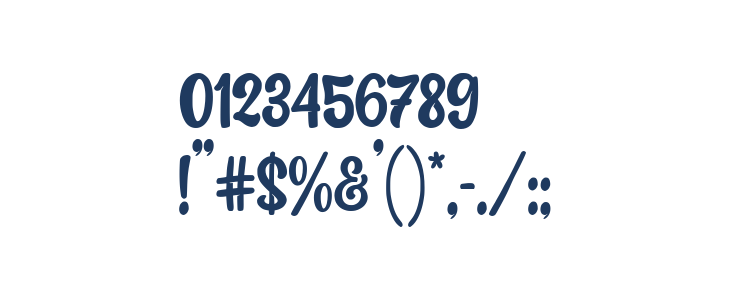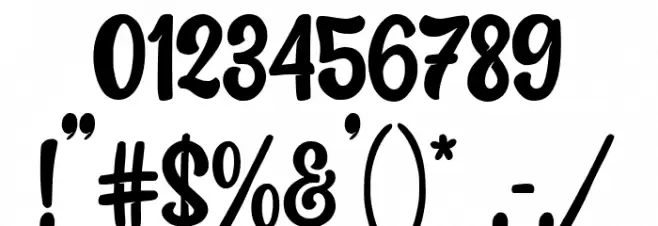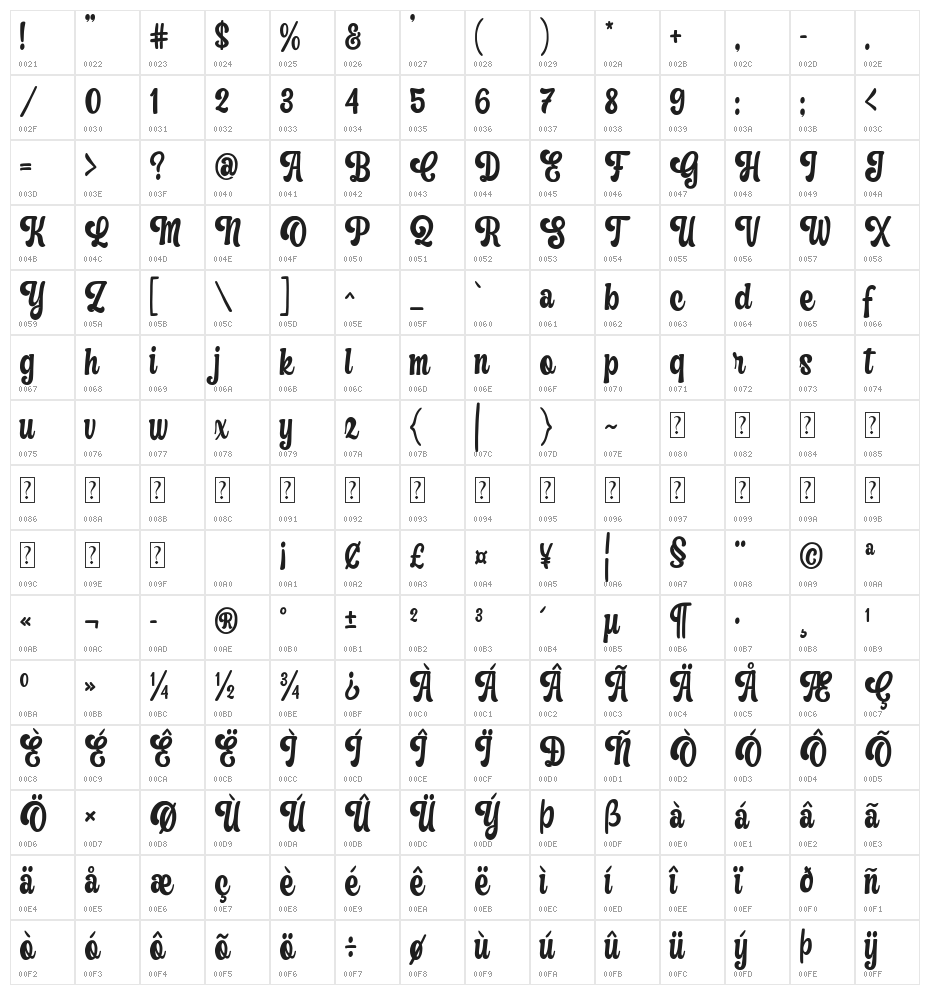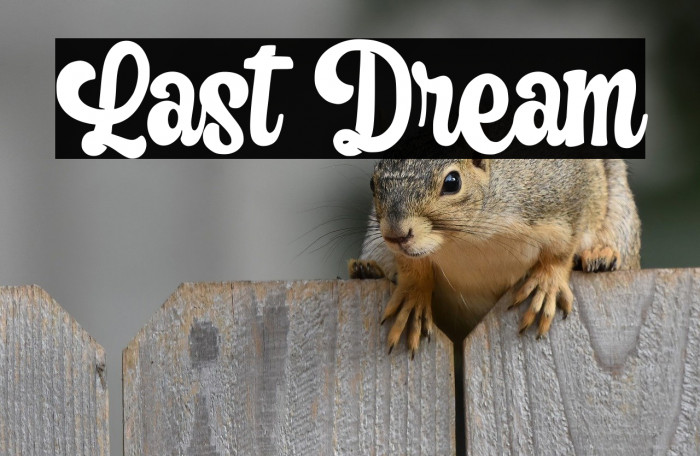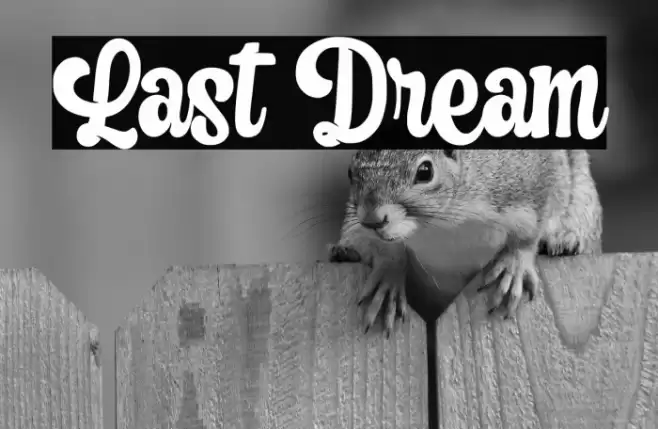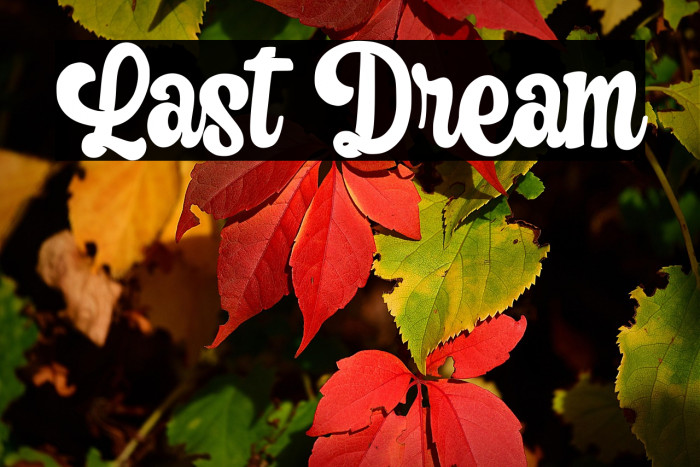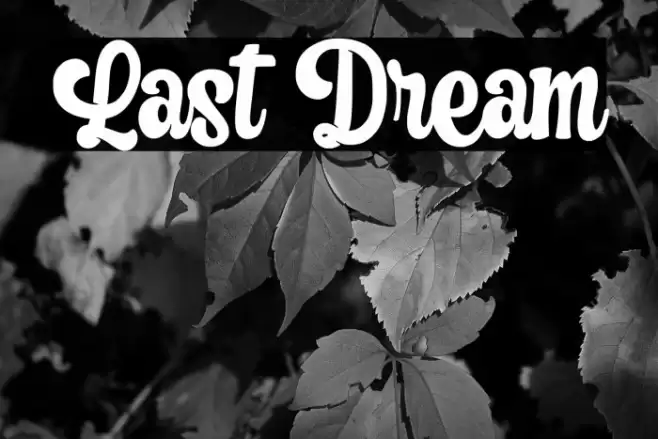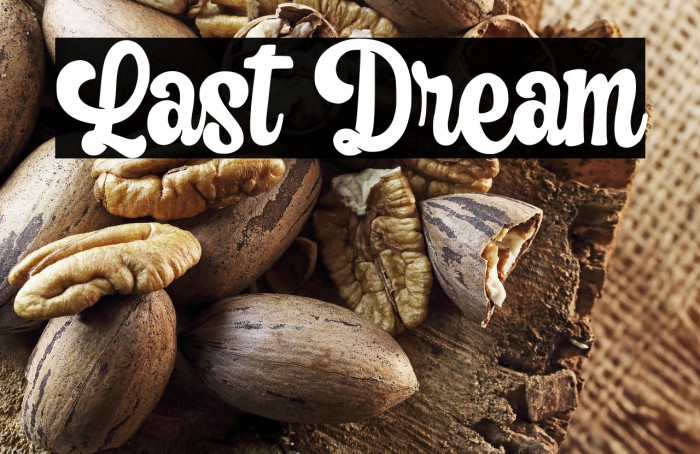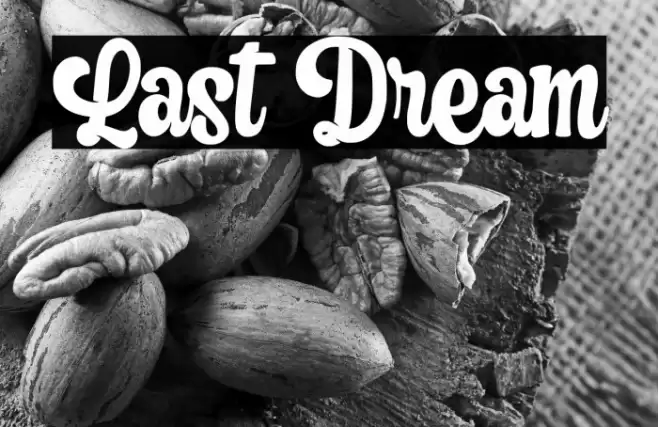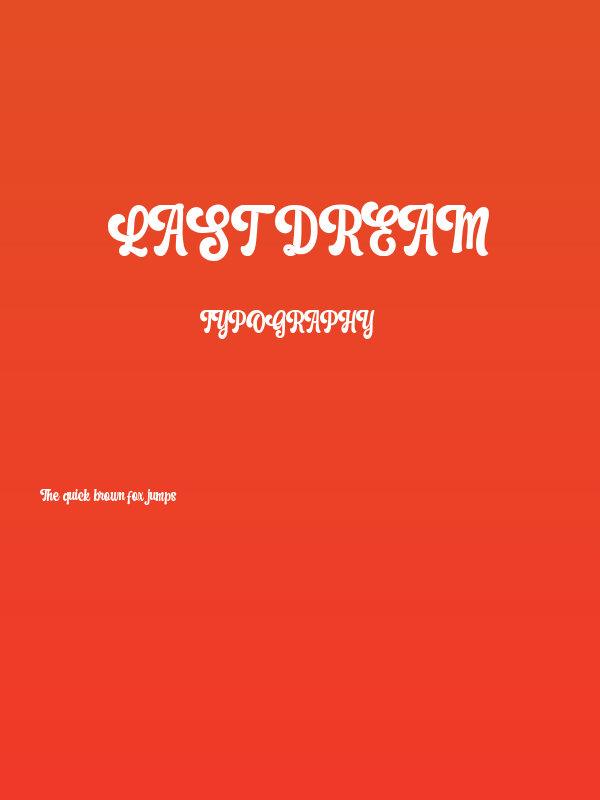
Last Dream Font
Last Dream Description
This font features a bold and playful script style, characterized by its flowing, cursive letterforms. The uppercase letters are ornate and have a whimsical flair, while the lowercase letters maintain a consistent rhythm with smooth, rounded edges. The numerals are equally bold, complementing the overall design with a touch of elegance. Special characters are well-integrated, maintaining the font's cohesive style. This font's unique personality makes it suitable for creative and expressive projects.
| Proposed Projects | Ideal for greeting cards, invitations, branding, and playful headlines. |